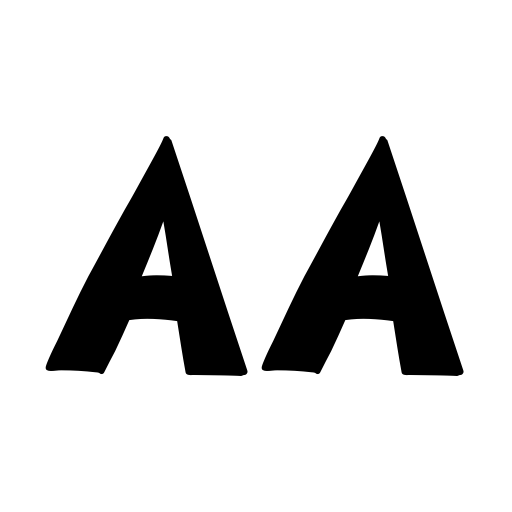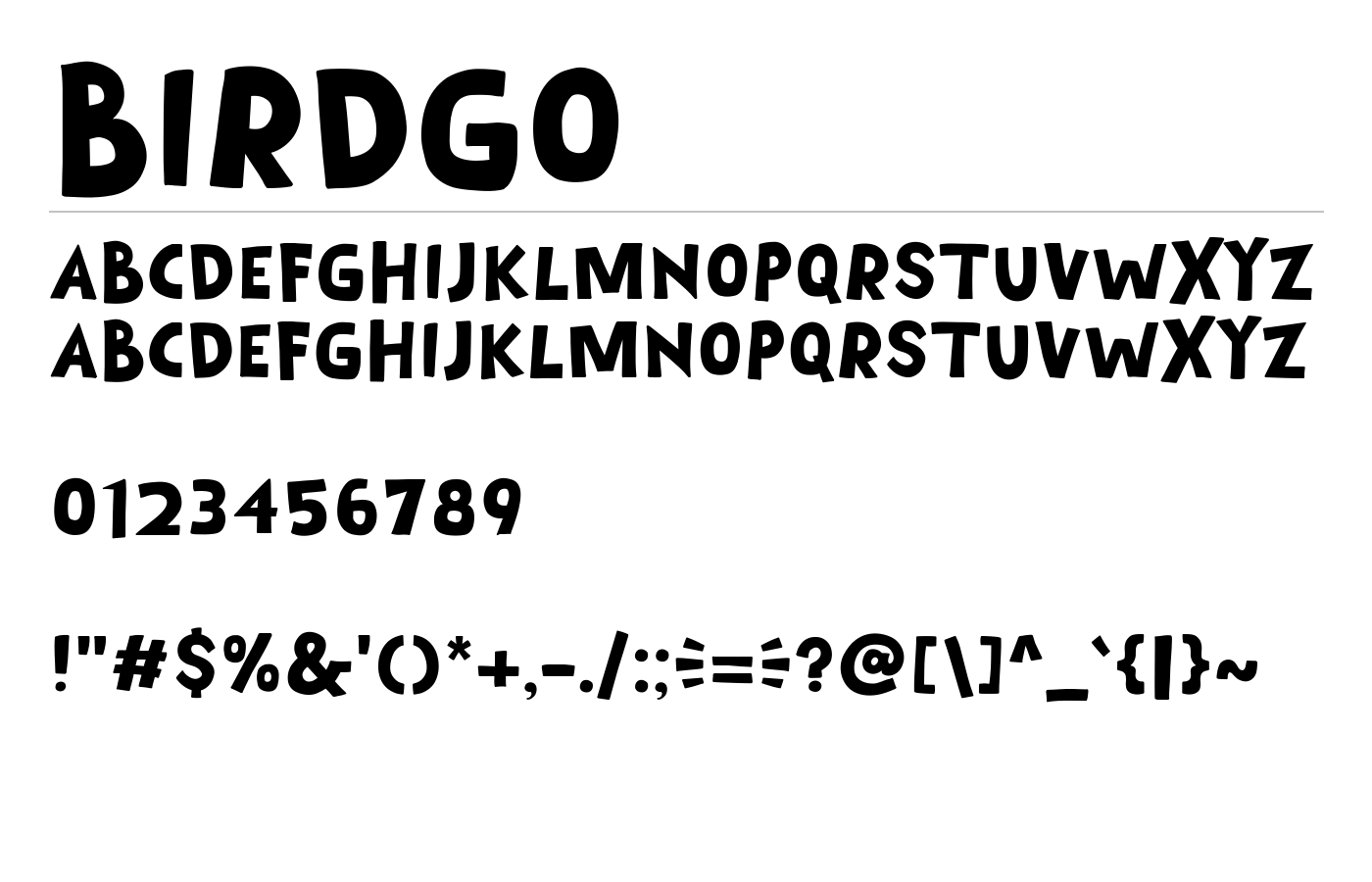
Birdgo is a bold, playful sans serif font with a slightly irregular, hand-drawn feel that adds personality and charm. Its rounded edges and uneven shapes make it perfect for casual, fun designs like children’s books, posters, or branding that aims to feel friendly and approachable. This font works well where a lively and informal tone is desired, helping to create an inviting and memorable visual impact.
Birdgo Font
About Birdgo Font